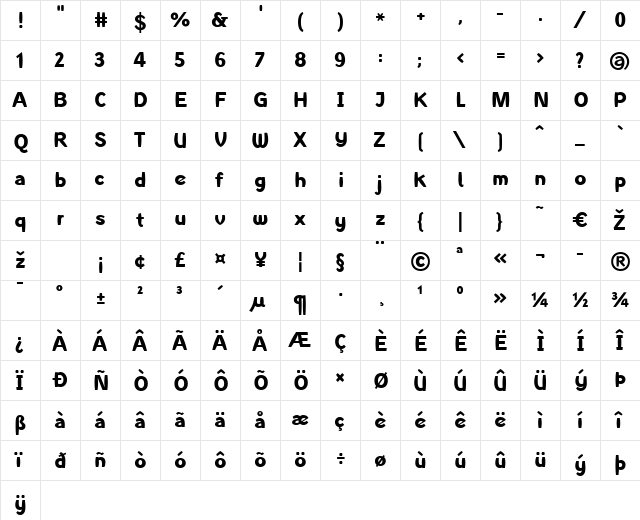
LTInagur Bold Regular
| Designer | Hans-Jurgen Ellenberger |
Design Context for LTInagur Bold Typeface
LTInagur Bold offers clean, dependable letterforms without strong stylistic allegiance, making it a practical choice for designers who need flexibility. The heavy weight commands attention and anchors typographic hierarchies.